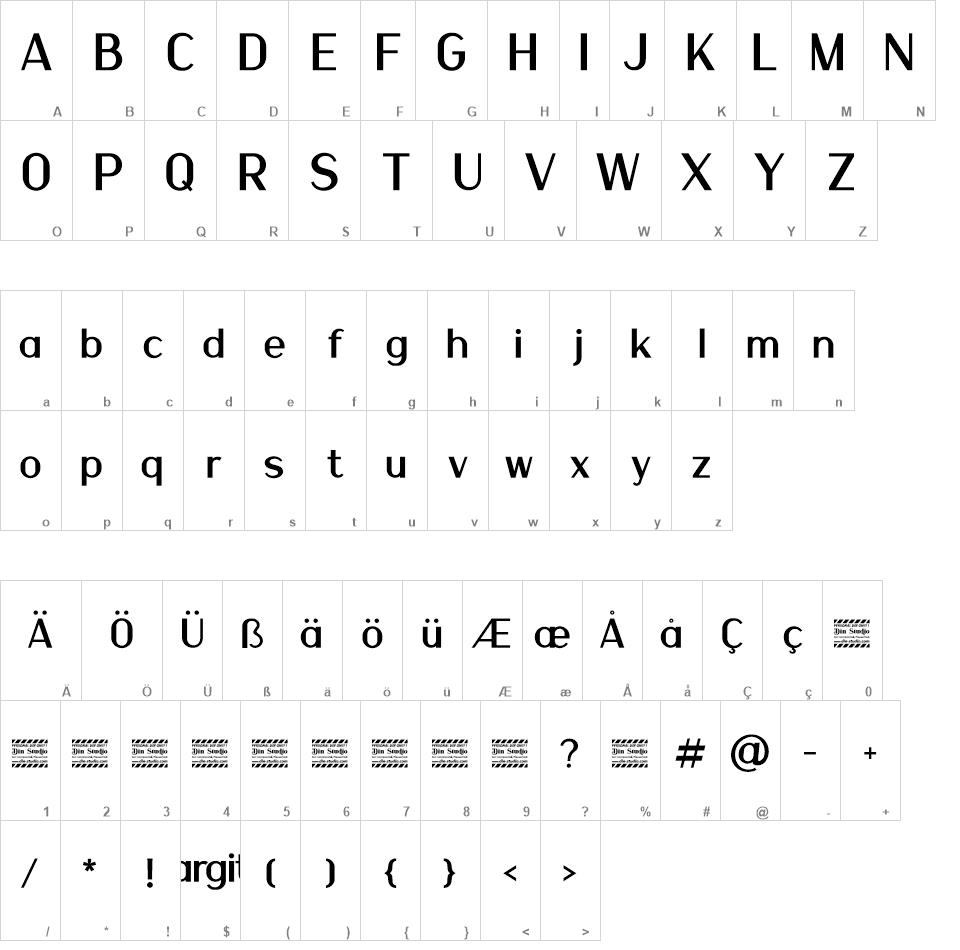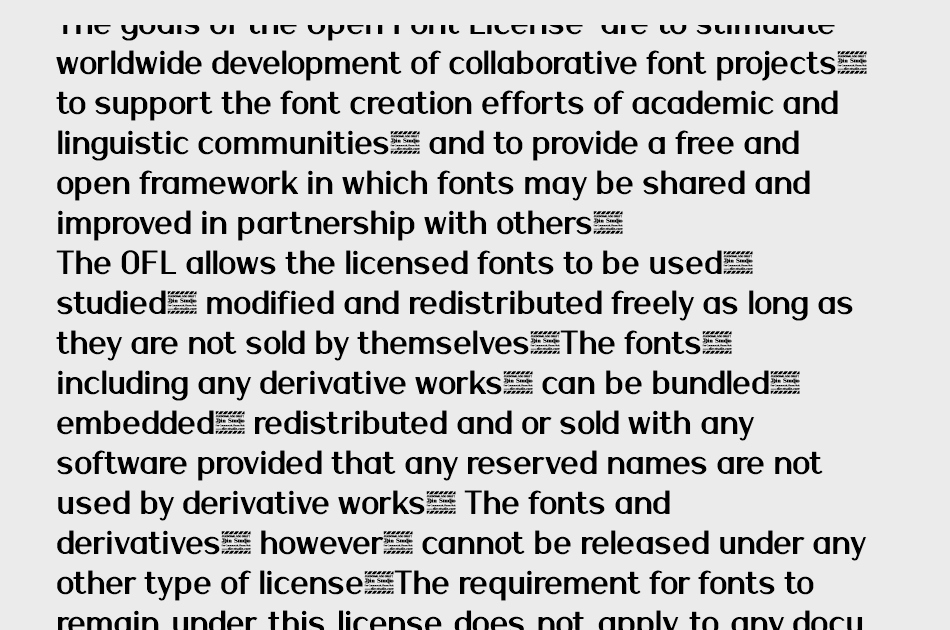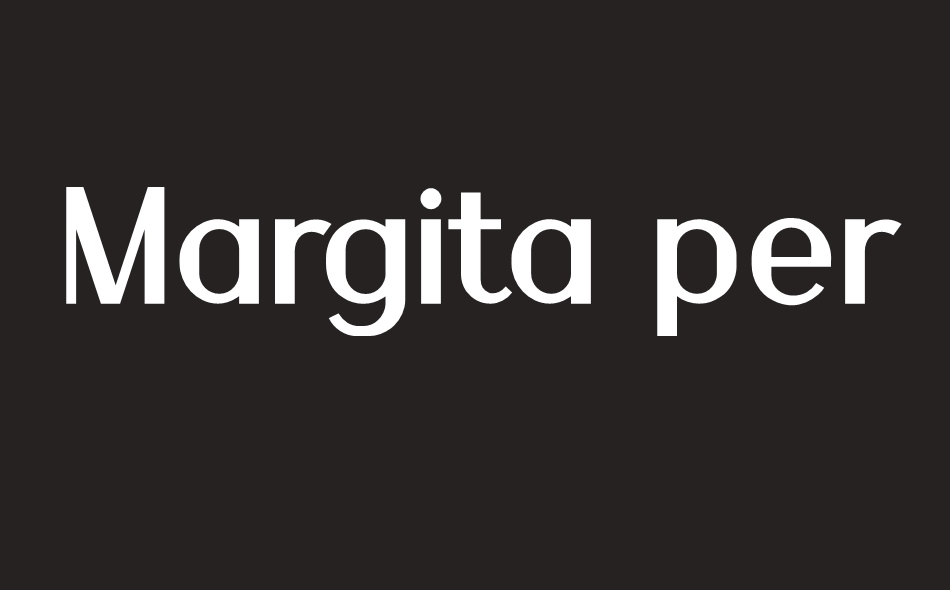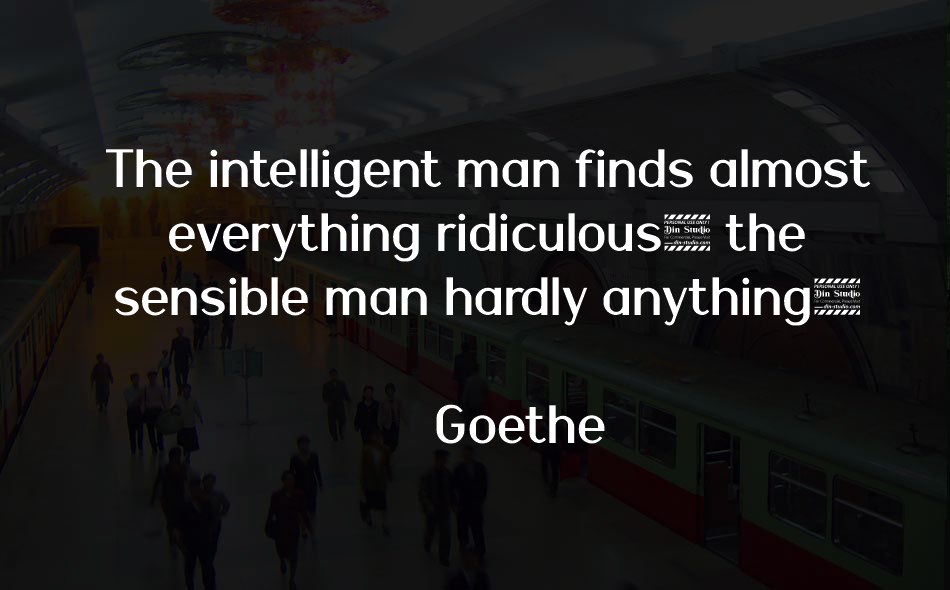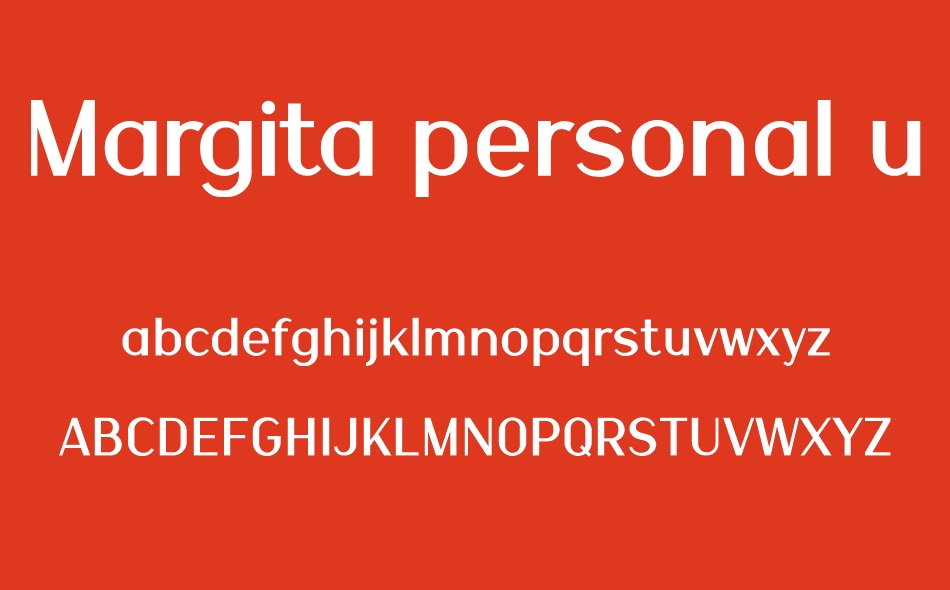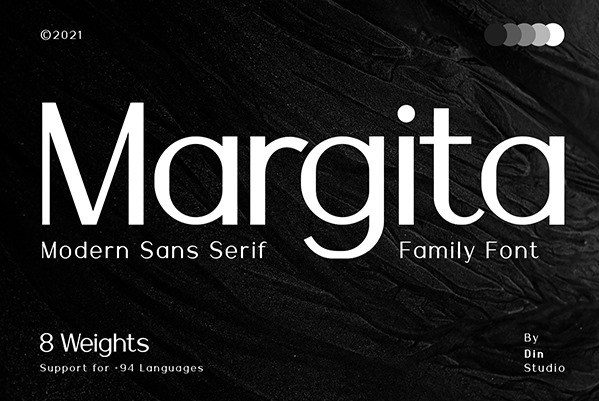
Margita font
This font is more than just another sans serif font. It encapsulates the essence of luxury and elegance. With elegance and passion edged into every curve and twist of this font youll be sure to boost your sales and make best impressions. This font become more special with many weights option to maximize your design. Use it for headings, logos, business cards, printed quotes, invitations of all sorts, cards, packaging, and your website or social media branding.